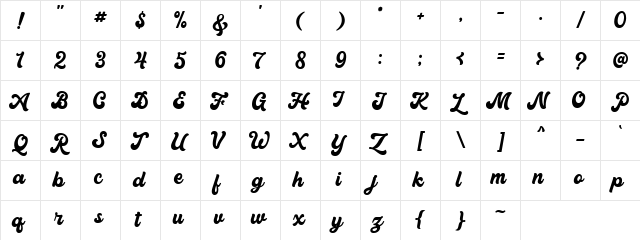
Ramdone Script Demo Regular
| Foundry | Letterhend Studio |
| Designer | Fatamorkidd Bukancumaa |
Design Context for Ramdone Script Demo Typeface
Ramdone Script Demo brings a calligraphic fluidity to the page — its connecting strokes and expressive curves give it an unmistakably human quality.